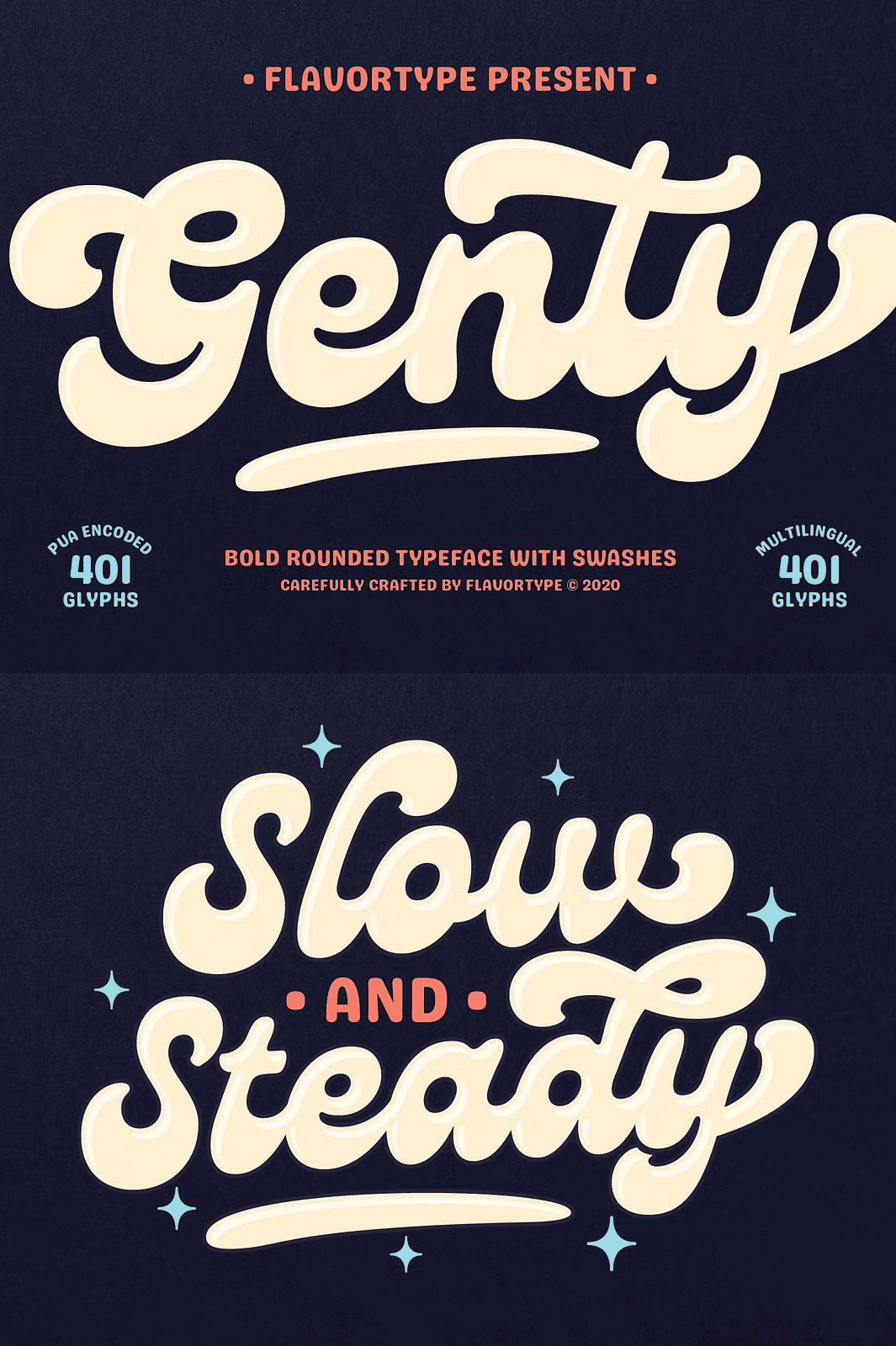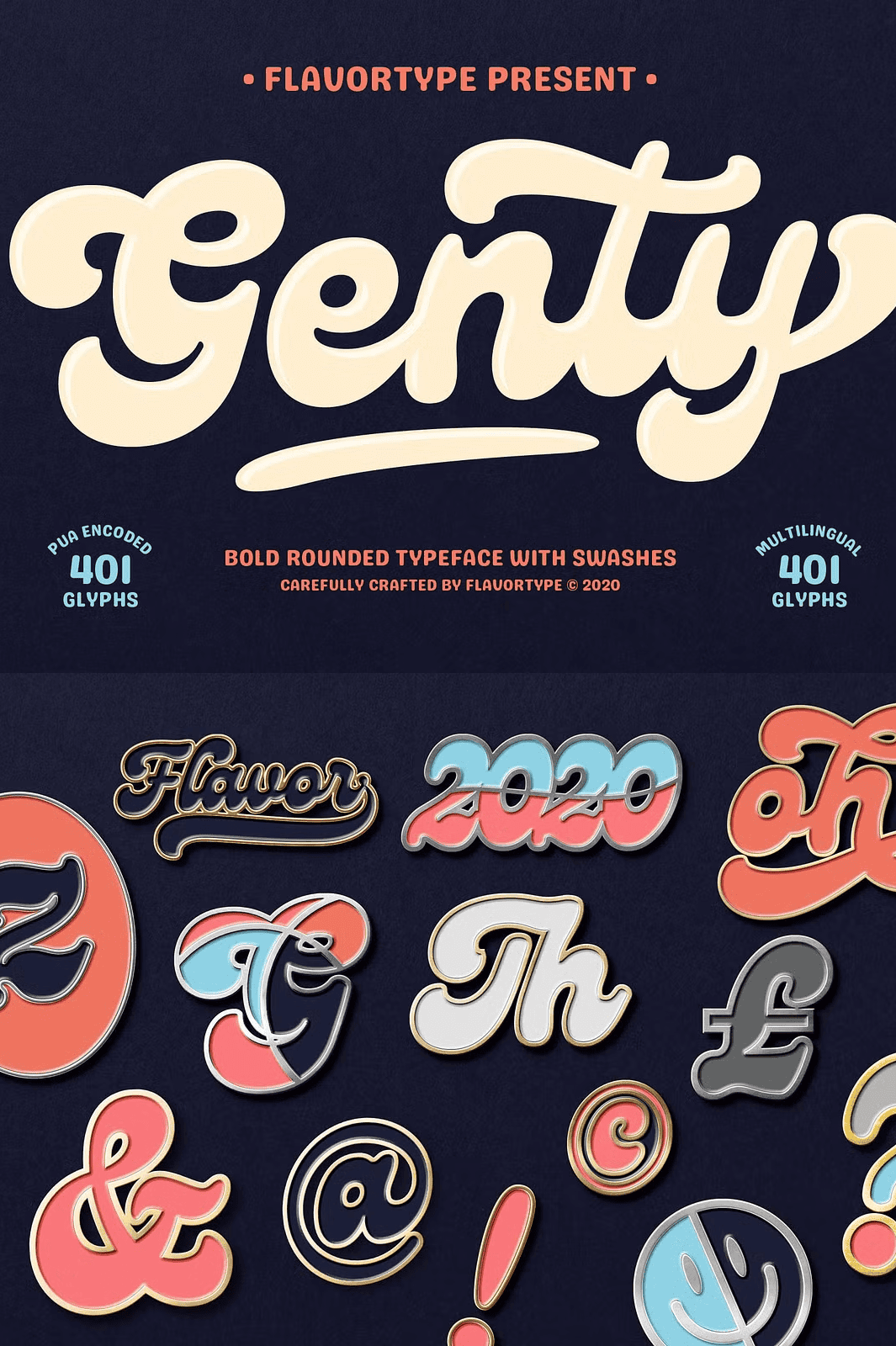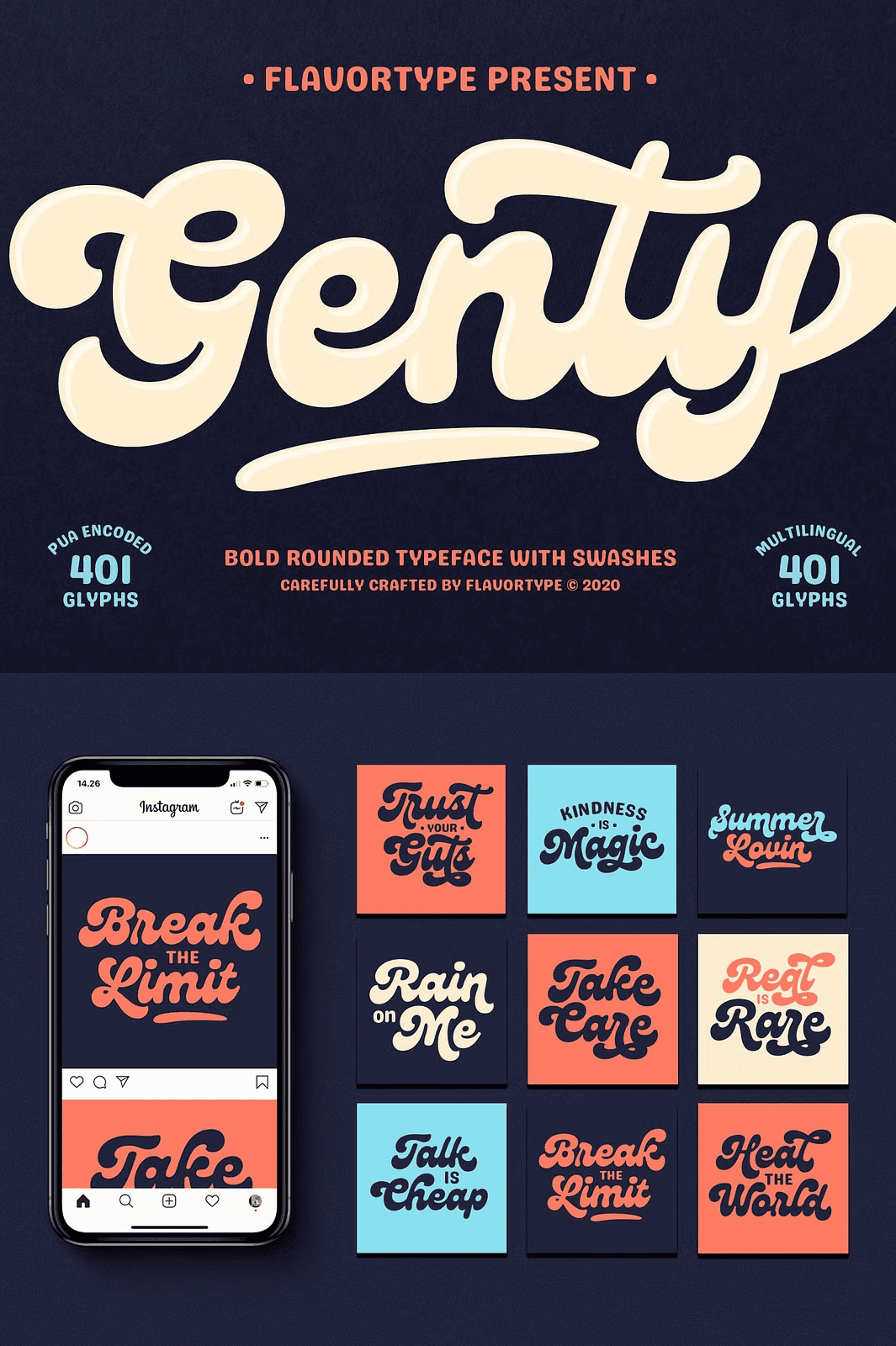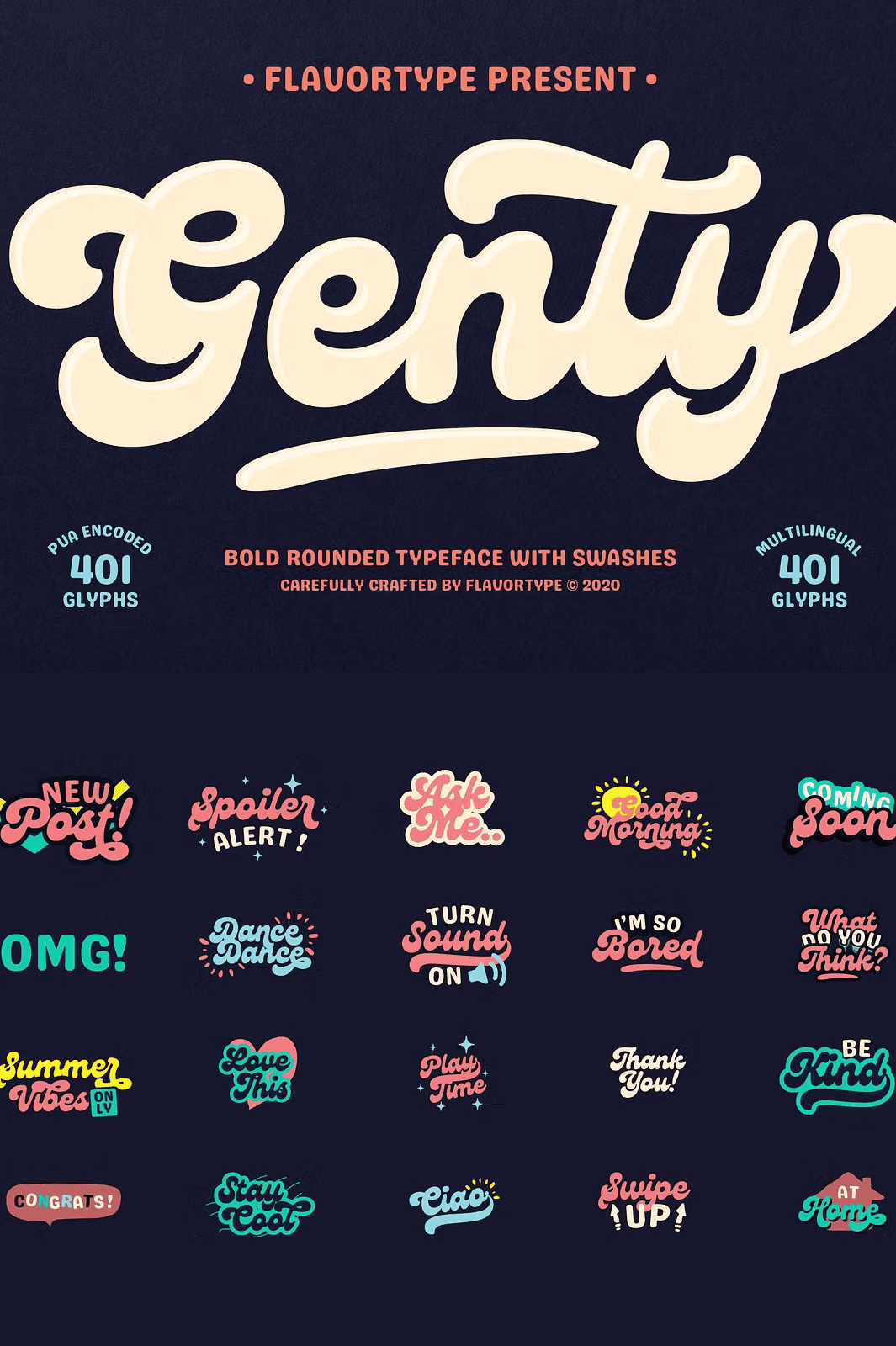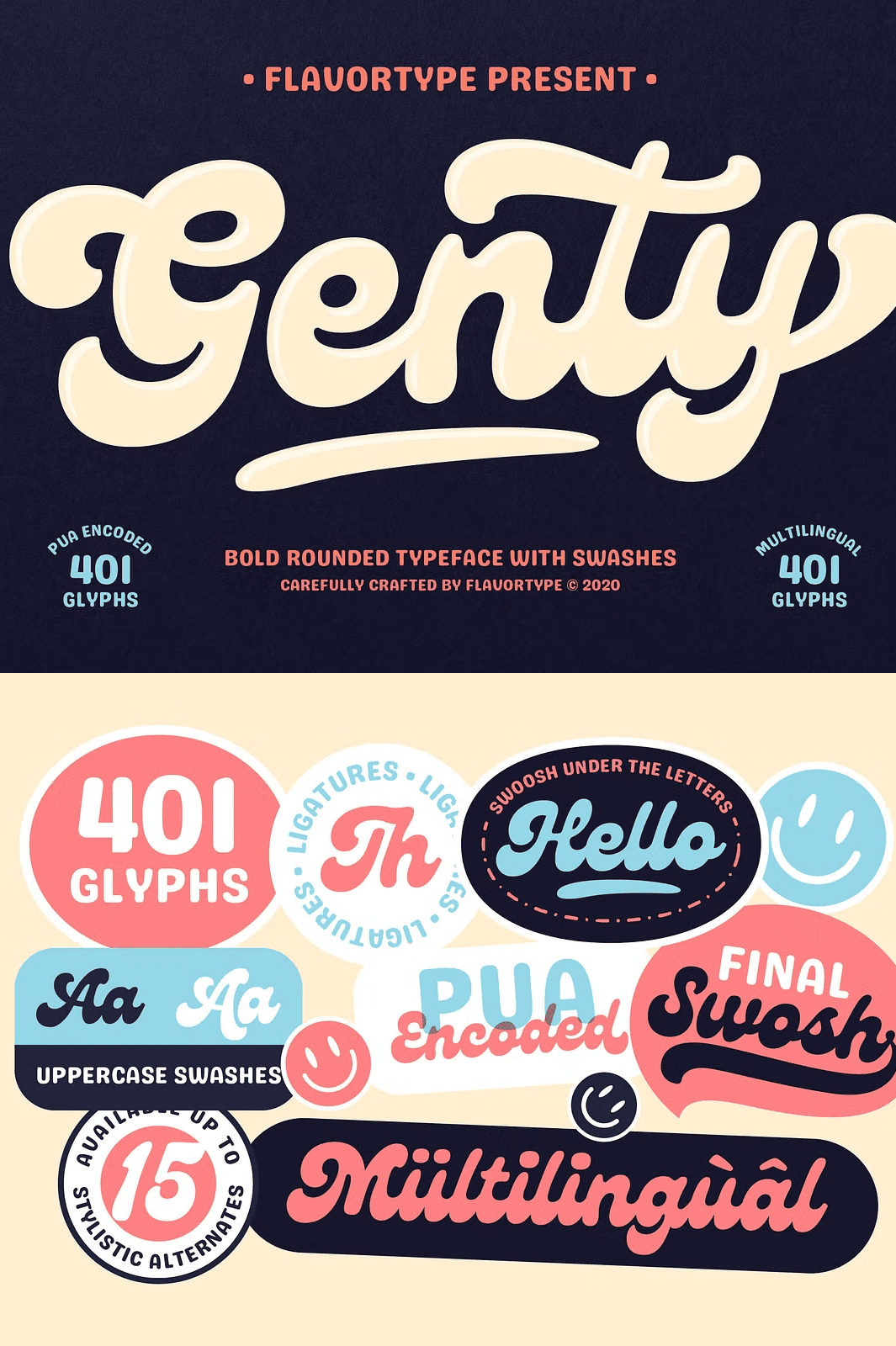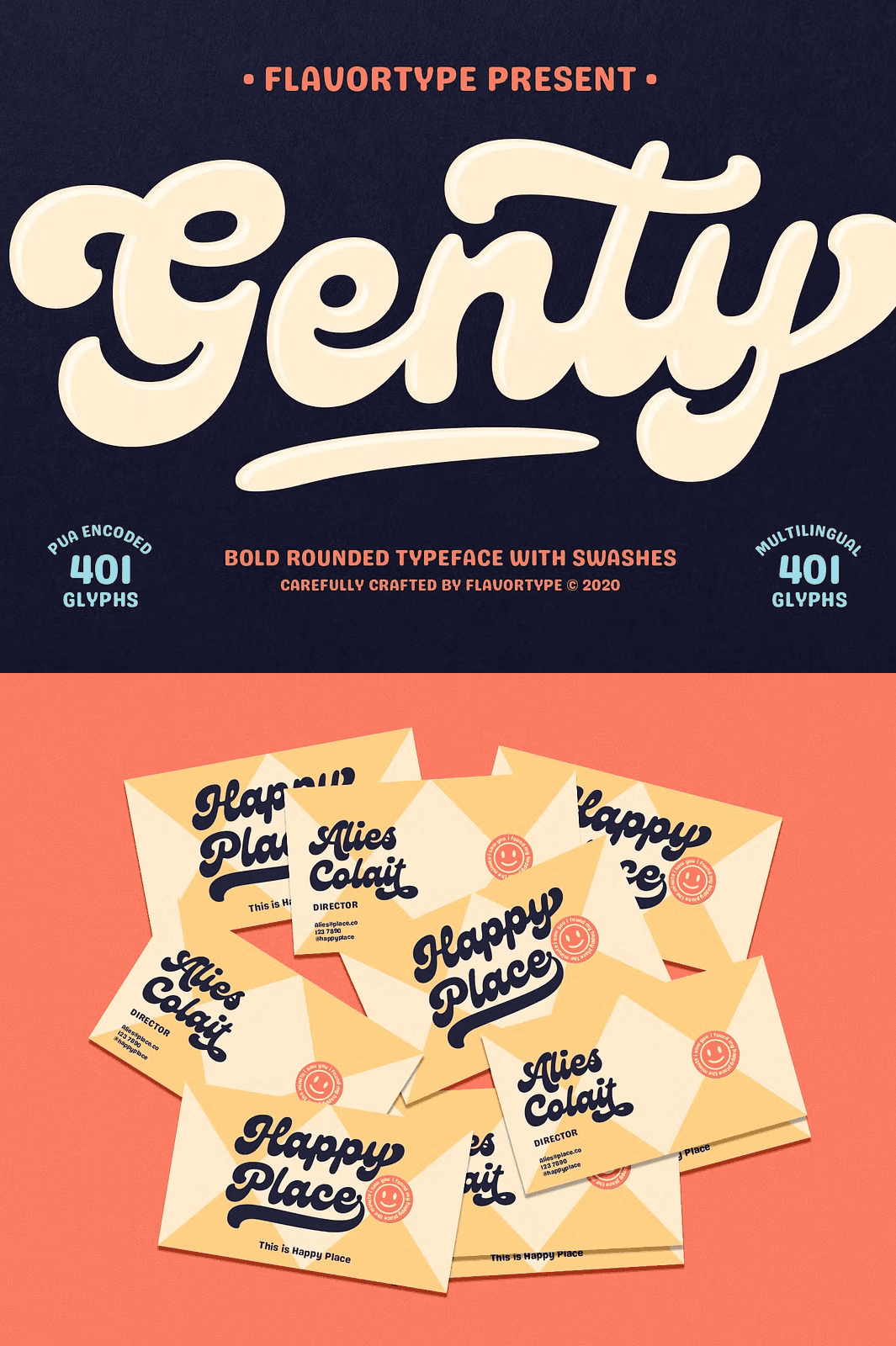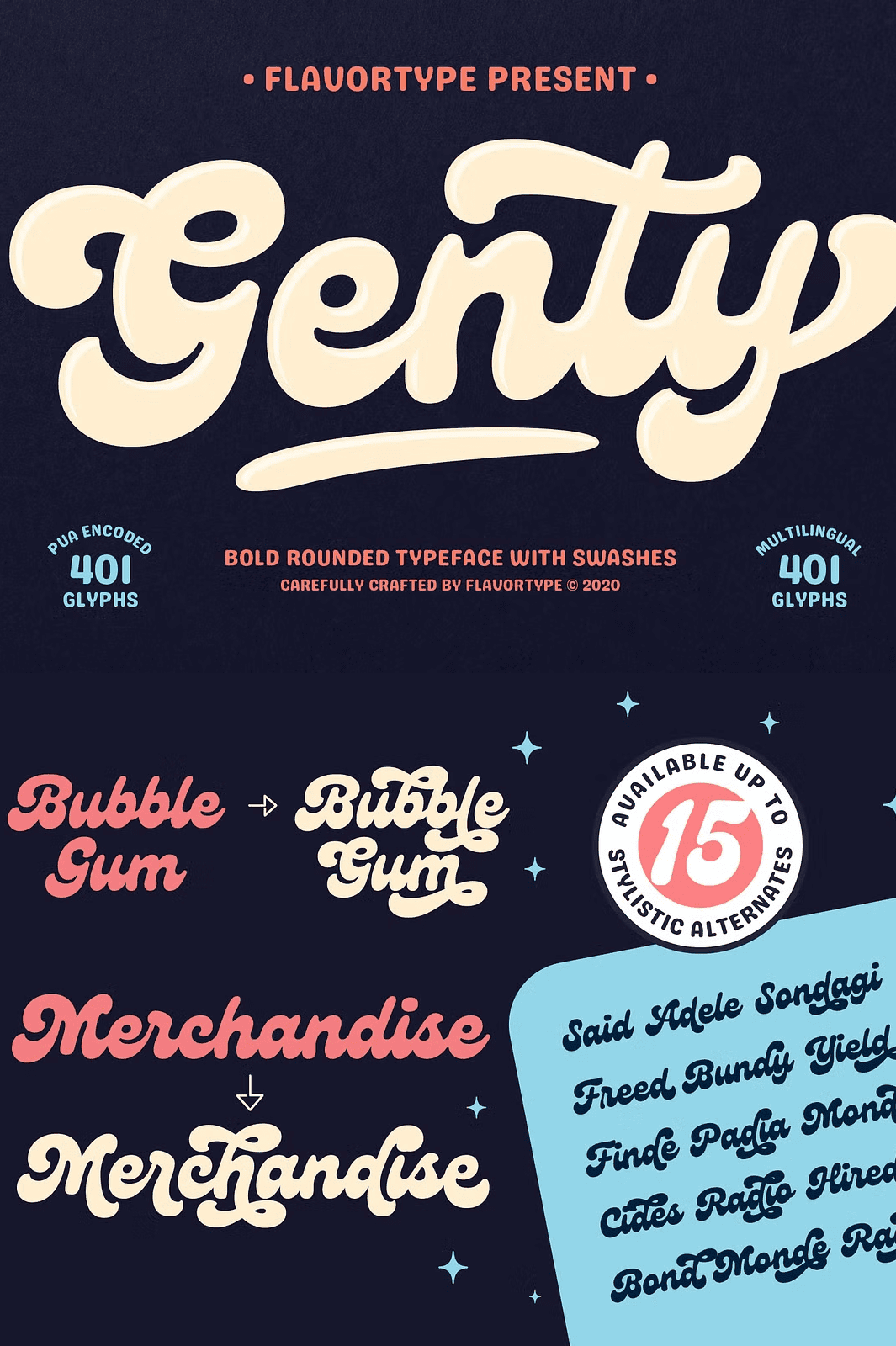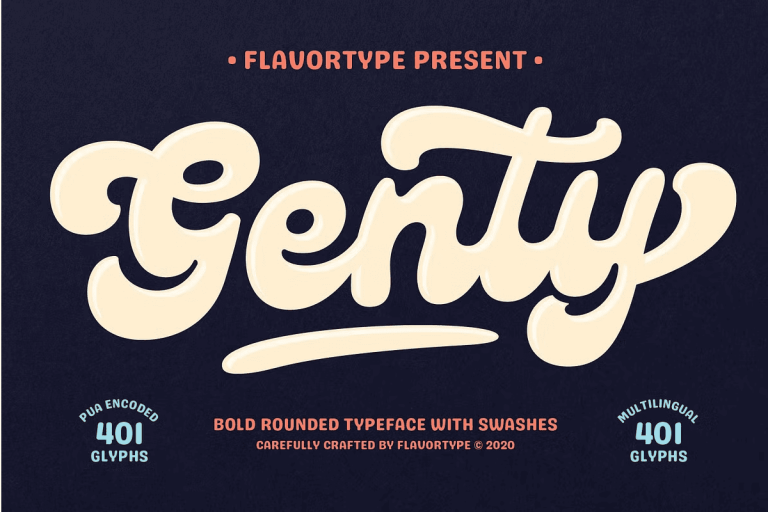
Genty – Bold Rounded Typeface
Engineered for Impact: The Ultimate Modern Script Typeface
Step into the spotlight with **Genty**, a freshly crafted, bold rounded script typeface that combines the playful charm of hand-lettered flair with the precision of modern font engineering. Born from the fusion of two beloved designs *Budge* and *Glaw* Genty delivers a dynamic, expressive style that’s fun, trendy, and bursting with personality.
This isn’t just a font it’s a full creative toolkit. Genty is built for designers who refuse to settle for ordinary. With **thick, round strokes**, **flowing swashes**, and **highly refined alternates**, every letter sings with motion and character. Whether you’re designing a brand logo, a social media graphic, or a luxury product label, Genty commands attention and holds it.
Genty goes beyond basic typography. This isn’t a static font it’s a living type system designed for professional-level control. Explore a vast suite of OpenType features to elevate your design instantly:
– **Up to 15 stylistic sets** — access multiple alternate versions of glyphs for unique visual rhythm.
– **Contextual alternates** — letters adjust naturally based on their position in a word, creating authentic flow.
– **Ligatures & swashes** — connect letters seamlessly with elegant loops, ascender swashes, and descender flourishes.
– **Uppercase and terminal swashes** — add dramatic, expressive endings to your text.
– **Swooshes under and at the end of letters** — boost visual dynamism and movement.
All alternates are carefully curated to maintain the font’s natural feel no artificial distortion, no loss of identity. Only authentic, expressive type that performs flawlessly.
Complete Your Design with the Perfect Companion: Genty Sans
Why stop at one? Genty is paired with a **matching sans-serif typeface — Genty Sans** offering a sleek, clean contrast to the bold script. Use the script for headlines and emotional messaging. Use the sans for balanced, modern body text or supporting captions.
This duo creates harmony in any layout:
– **Brand identity** with personality and professionalism
– **Social media visuals** that pop and engage
– **Packaging and menus** with high visual appeal
– **Magazine layouts** that feel fresh and contemporary
The complementary styles ensure versatility across every project, every platform, every mood.
Language Support & Real-World Versatility
Genty isn’t just beautiful it’s built for global creativity. It supports **12 languages**, including:
– Danish, English, Finnish, French, German, German (Switzerland), Norwegian Bokmål, Norwegian Nynorsk, Spanish, Swedish, Swiss German
Whether you’re designing for a Parisian café, a Swedish lifestyle brand, or a global digital campaign, Genty delivers polished, authentic typography across cultures.
– ✨ Bold, rounded, expressive letterforms
– ✨ 15+ stylistic sets and contextual alternates
– ✨ Swashes, ligatures, ascender/descender flourishes
– ✅ Full matching sans-serif pair